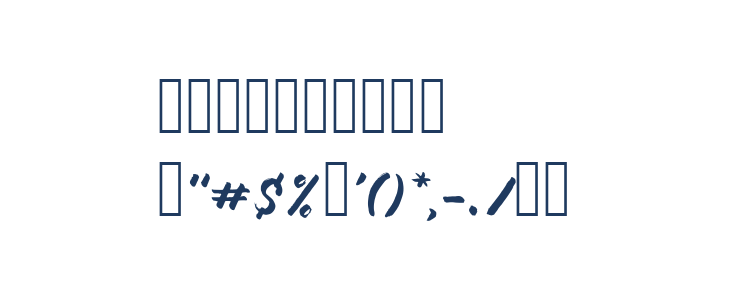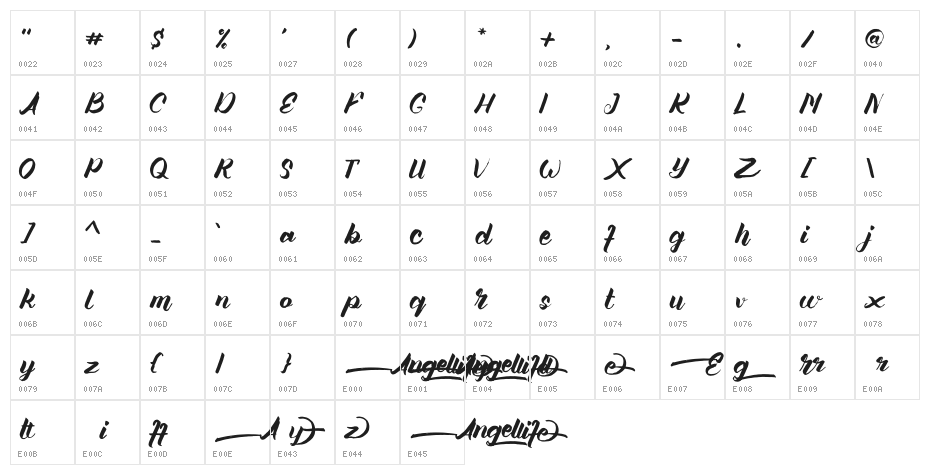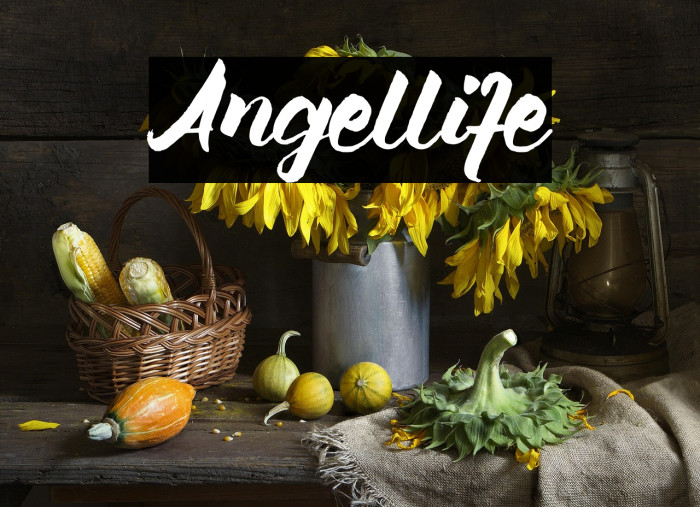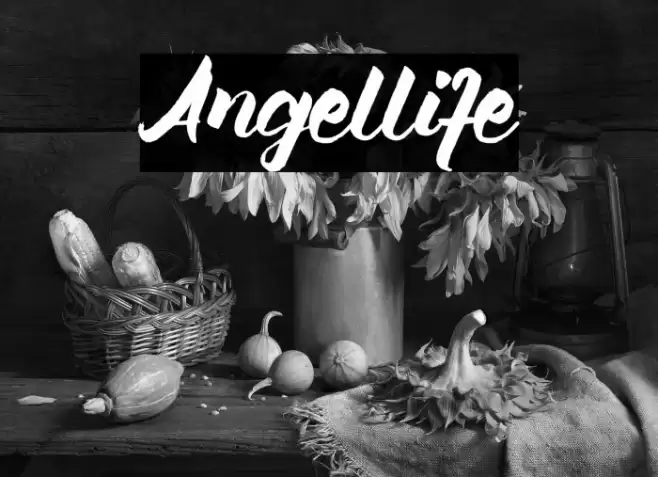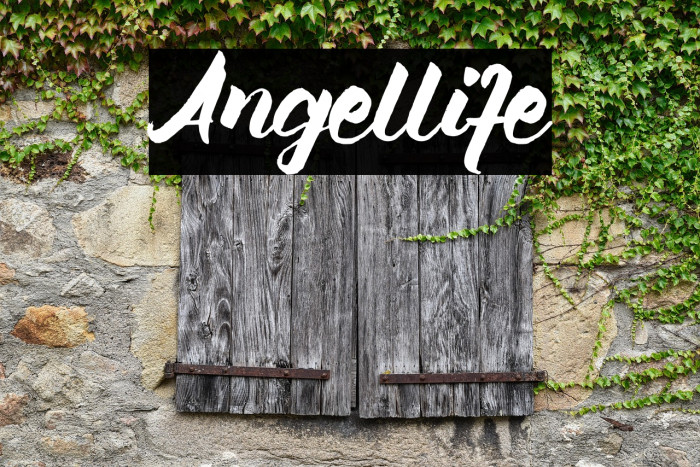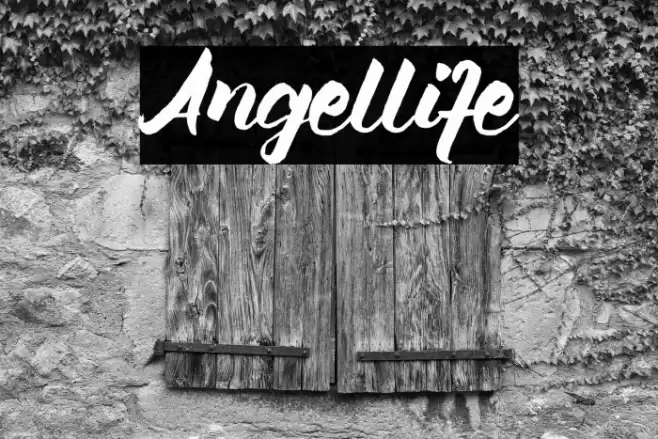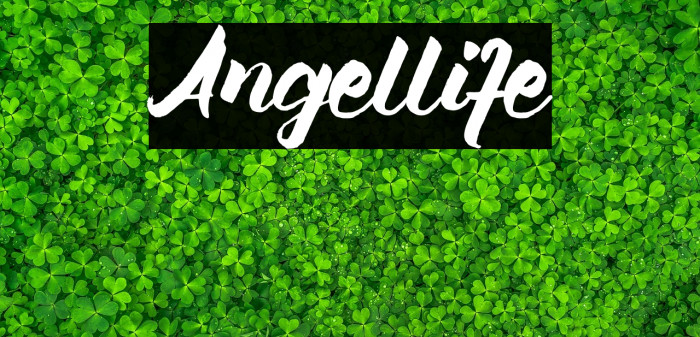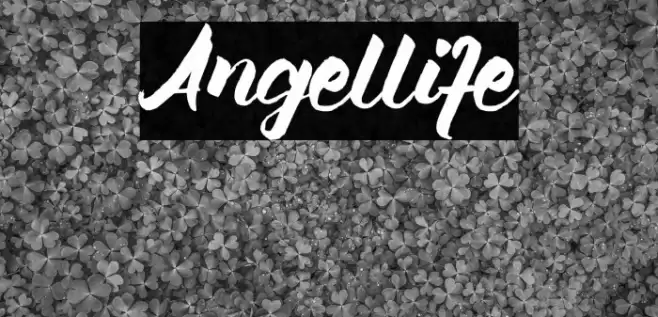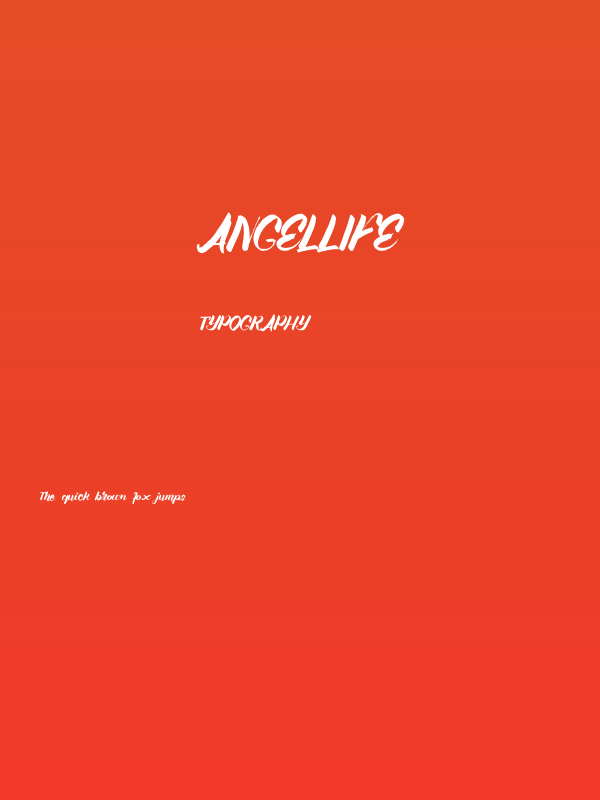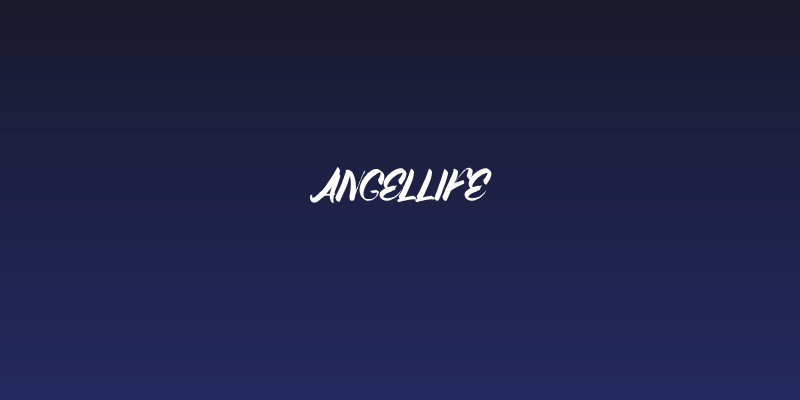
Angellife Font
Angellife Description
This font features a bold, flowing script style that mimics the fluidity of handwriting. The characters are connected, creating a seamless and elegant appearance. The uppercase letters are slightly larger and more pronounced, while the lowercase letters maintain a consistent flow. The strokes are thick with a medium contrast, giving the font a dynamic and lively feel. The special characters are designed to match the overall style, ensuring a cohesive look across all text elements. This font is ideal for projects that require a personal touch or a sense of elegance and sophistication.